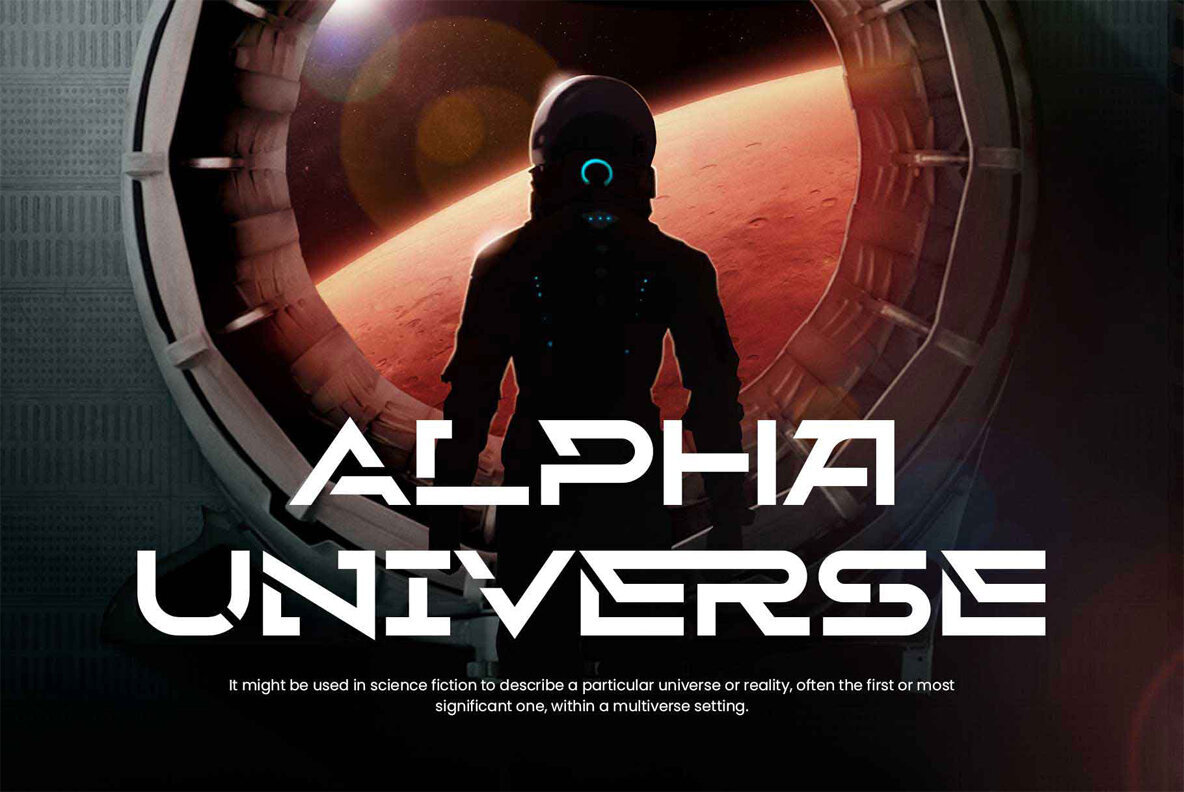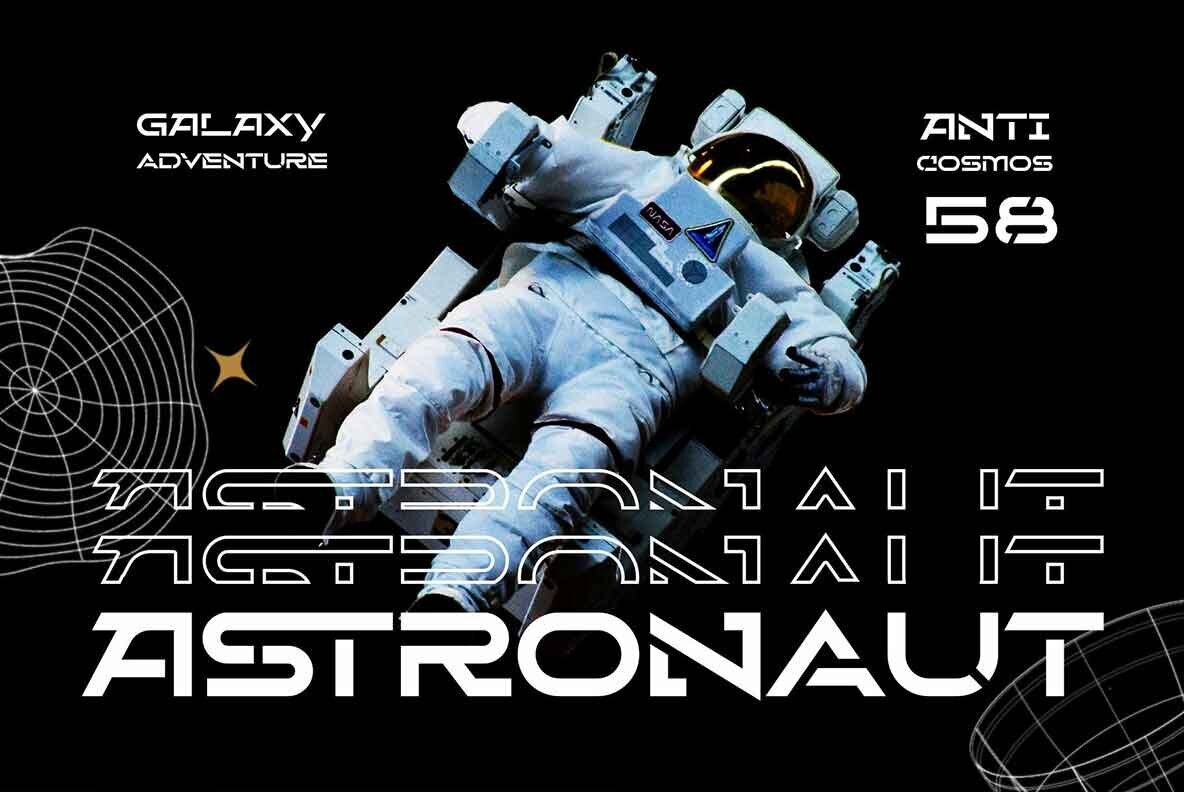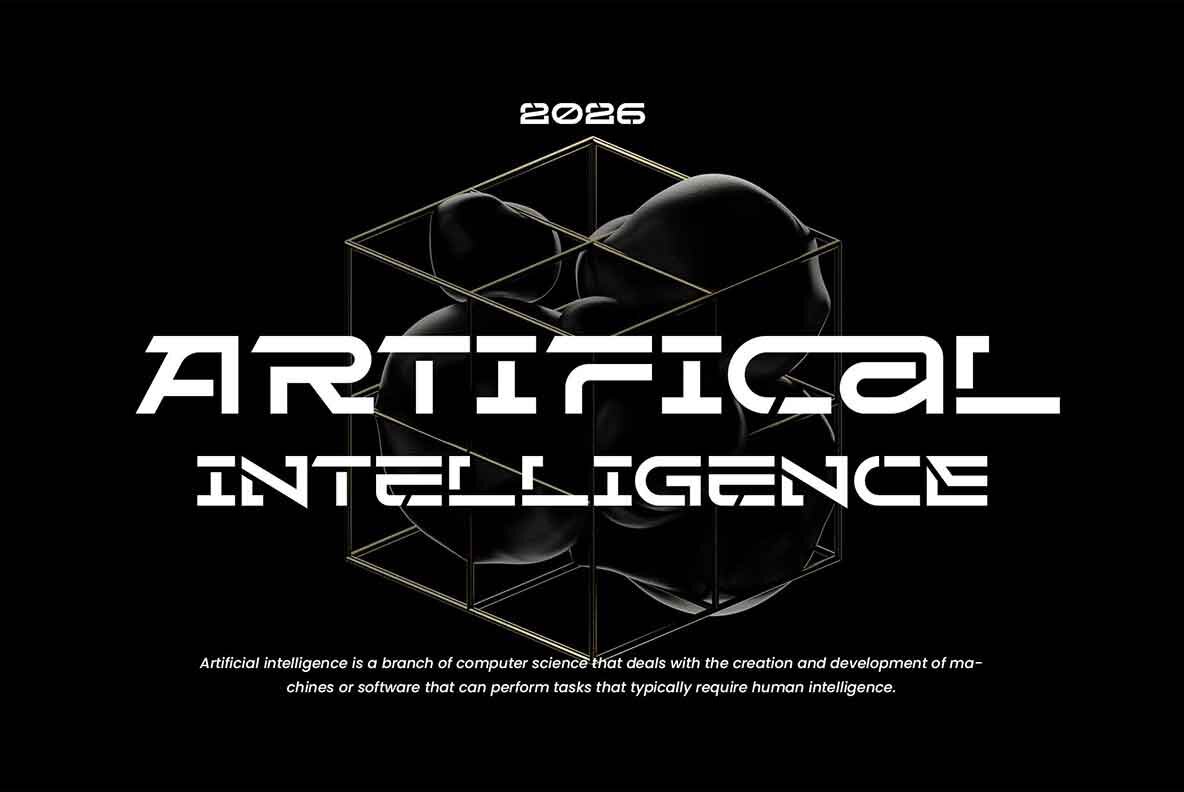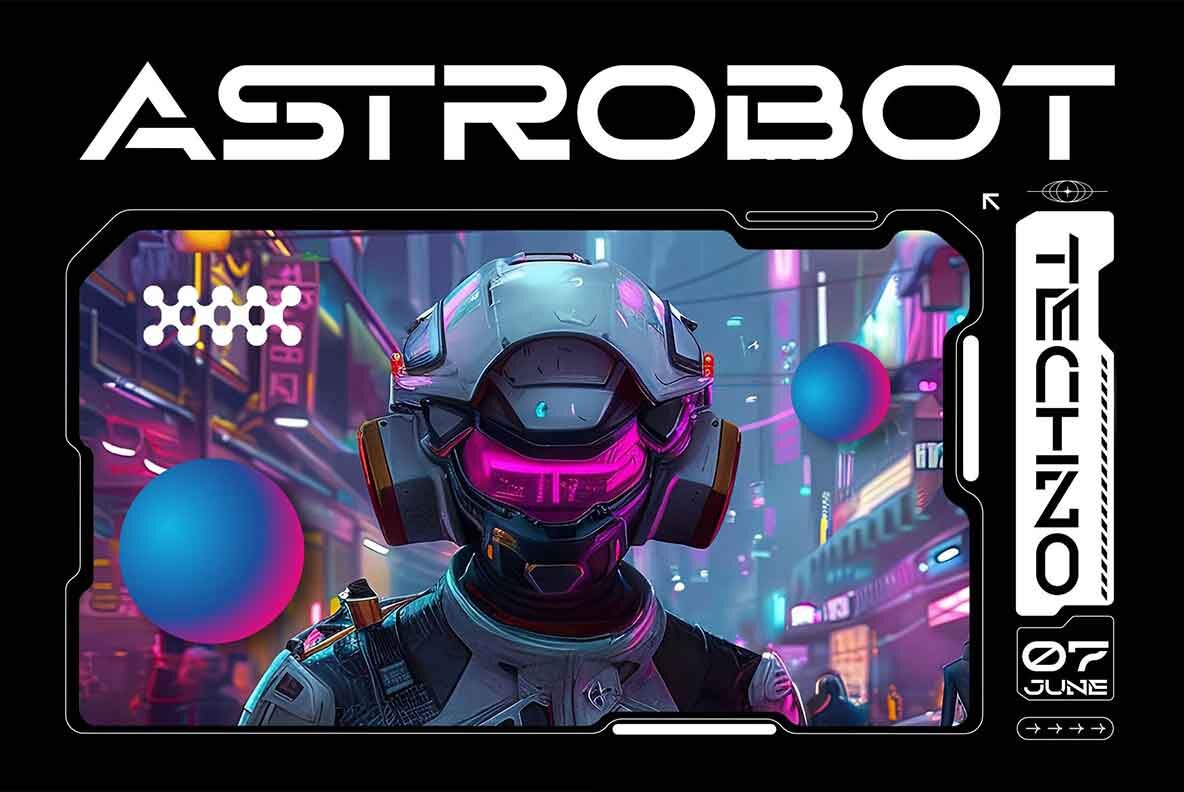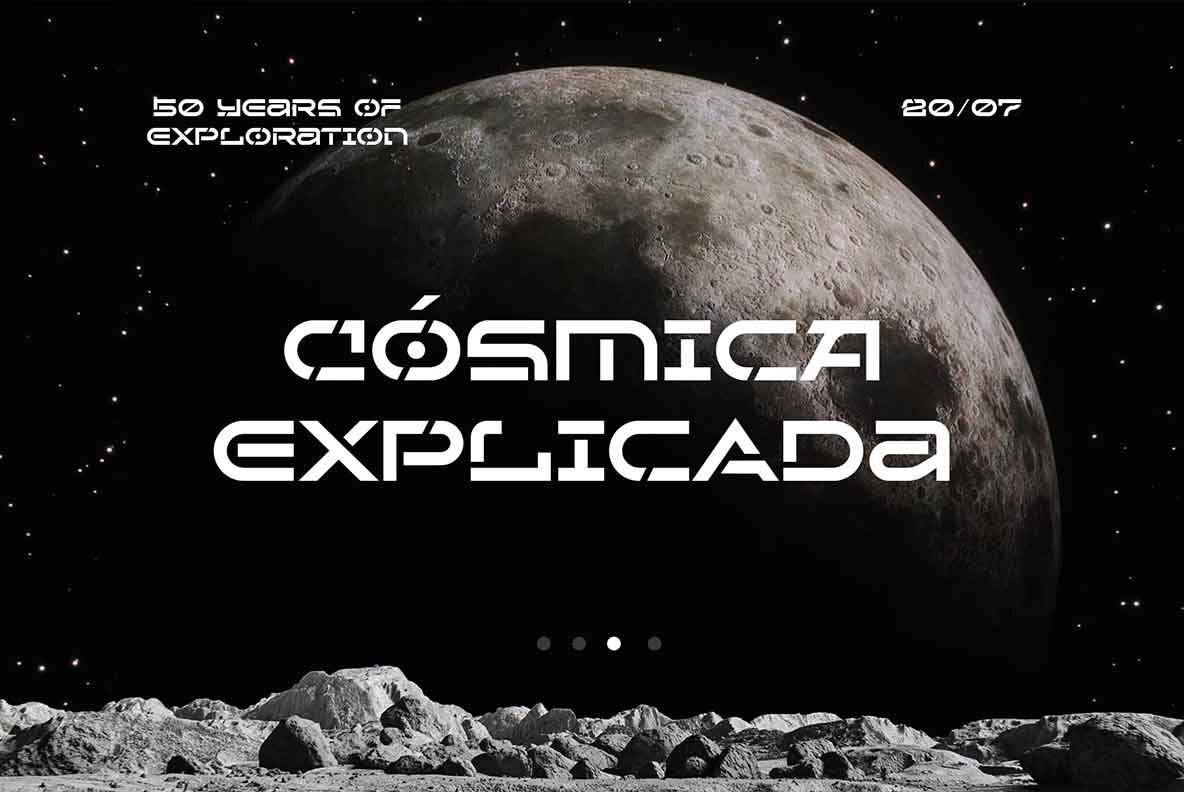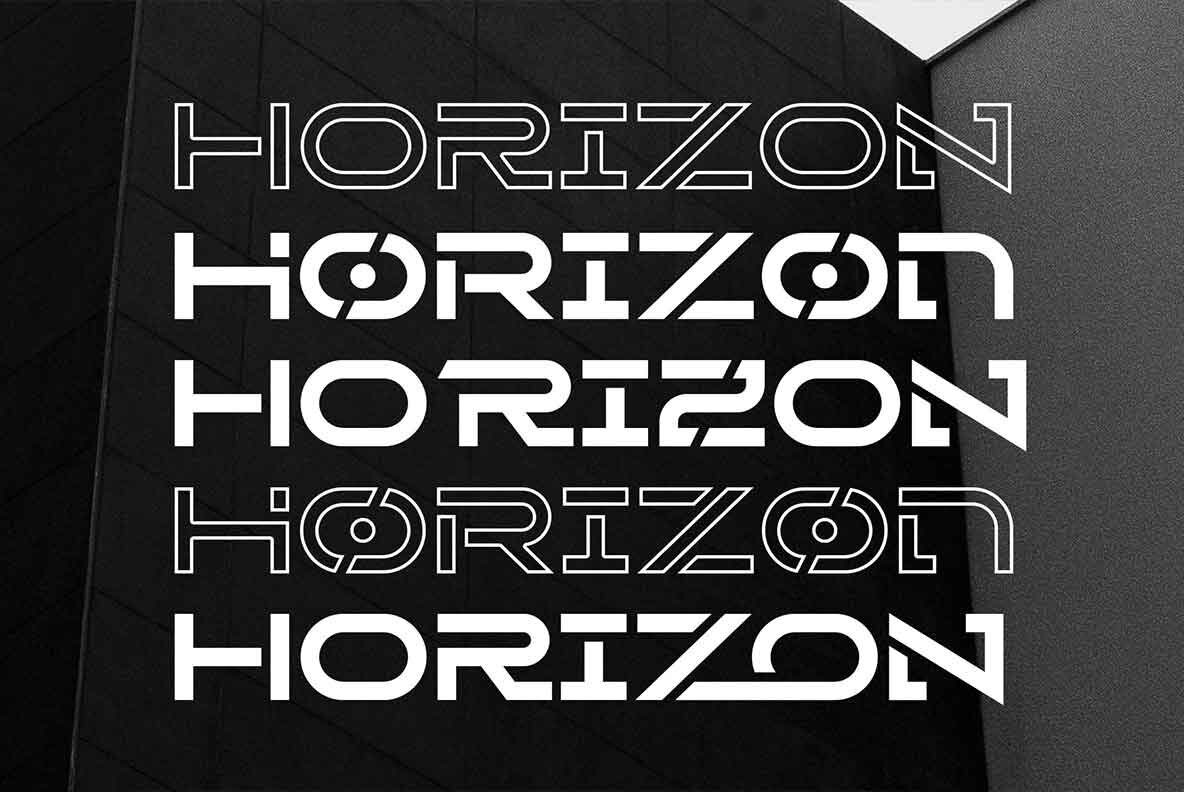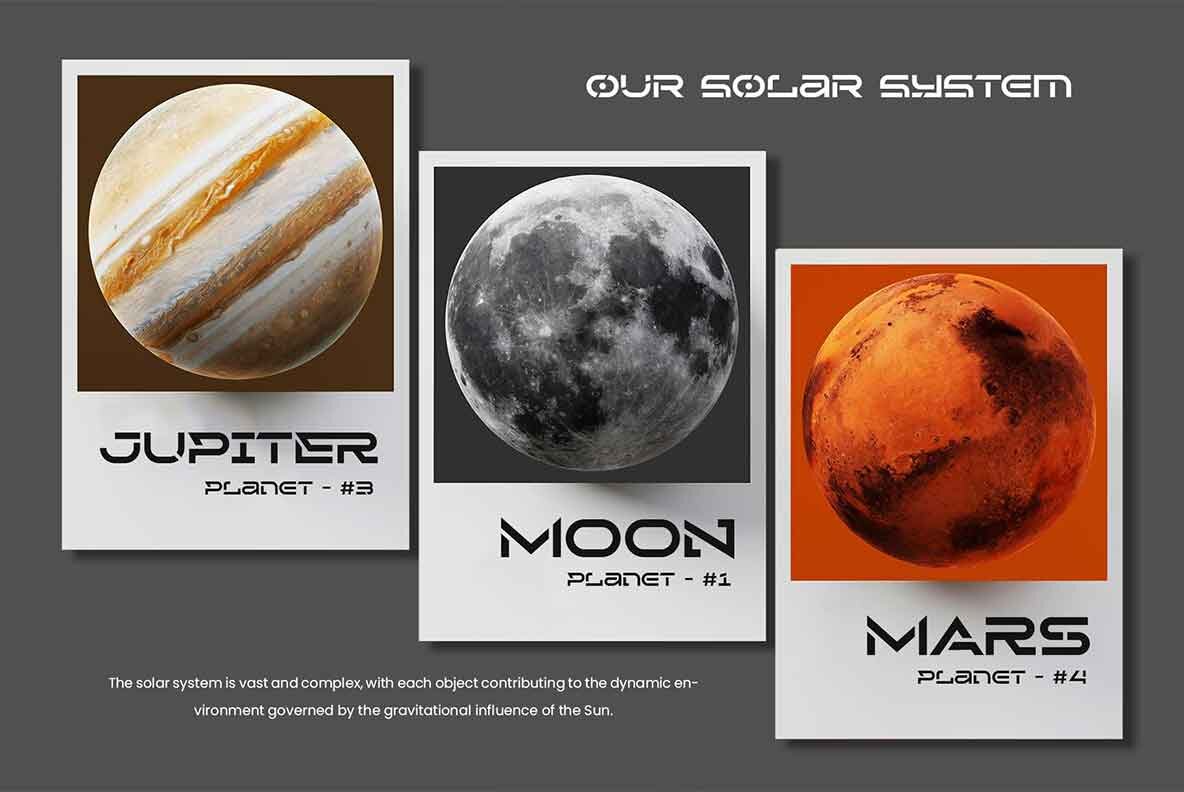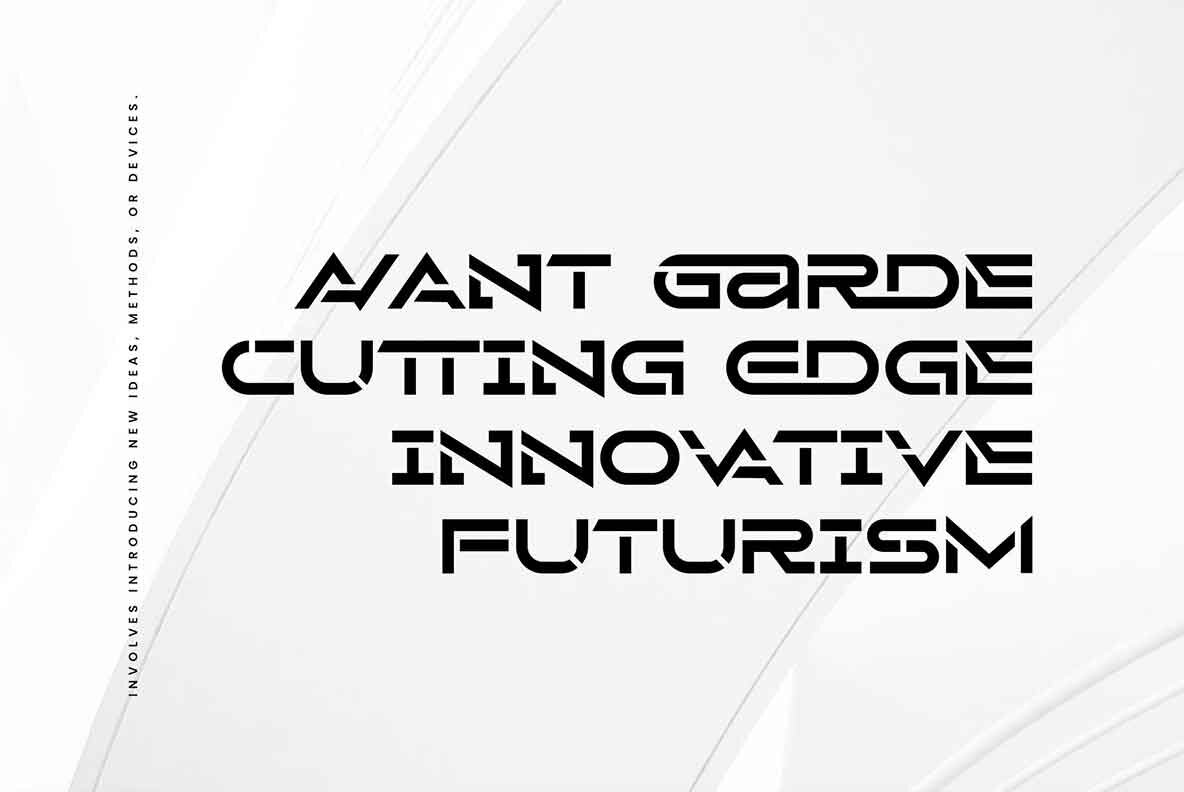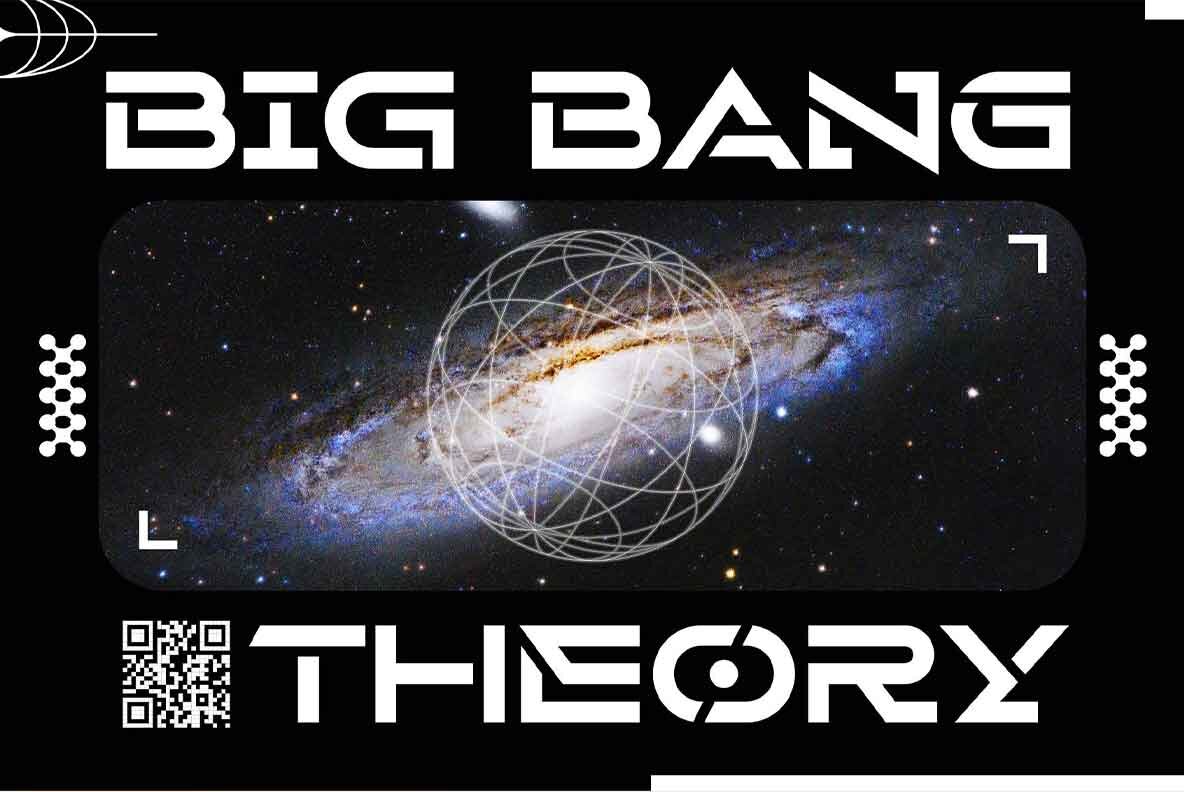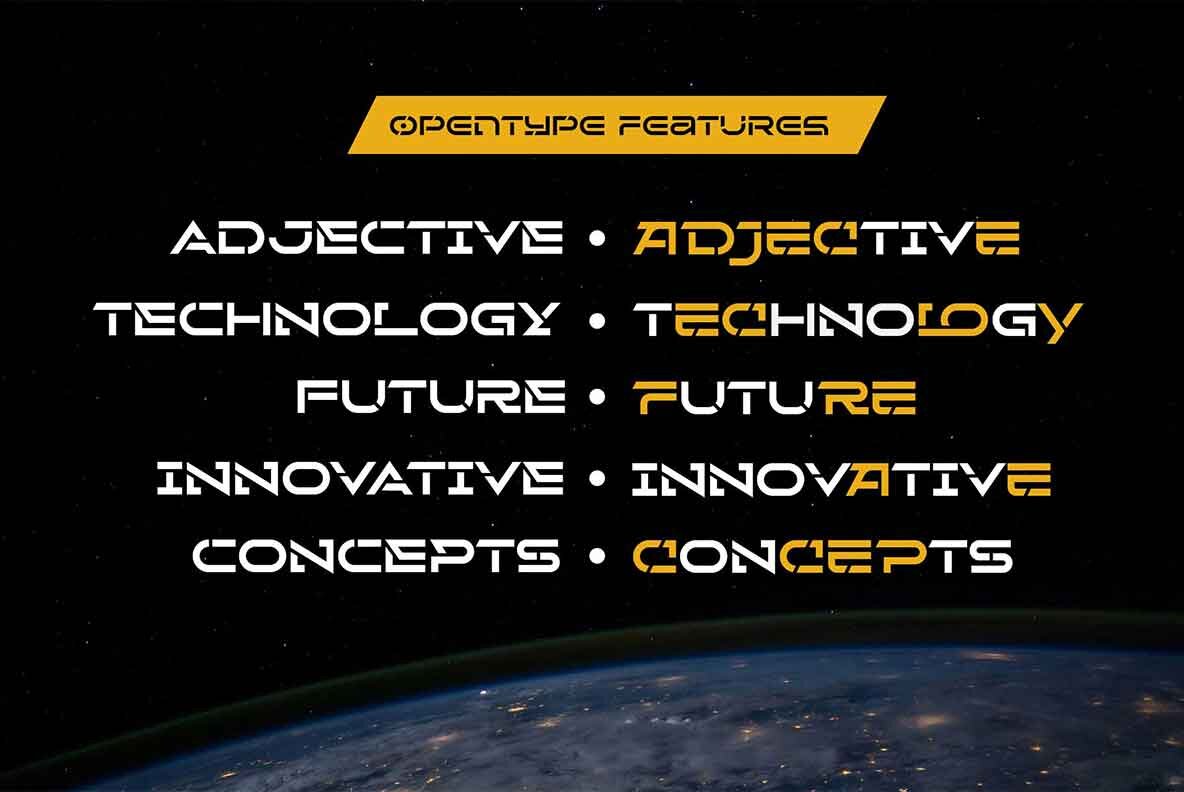
Stage Wander Font
Stage Wander Regular
Take your design on a space journey with this geometric and stencil-inspired font. 'Stage Wander' offers a dynamic and futuristic look, perfect for infusing a sci-fi touch into your projects. Its strong letterforms are ideal for titles or displays, providing a bold and impactful aesthetic.
This font features stylish ligatures that will give your designs a high-tech and sporty feel. Whether you're creating posters, flyers, logos, signage, movie covers, or banners, 'Stage Wander' has you covered. It includes all-caps characters, numbers, punctuation, symbols, accented characters, stylistic alternates, and ligatures, making it a versatile choice for various design needs.